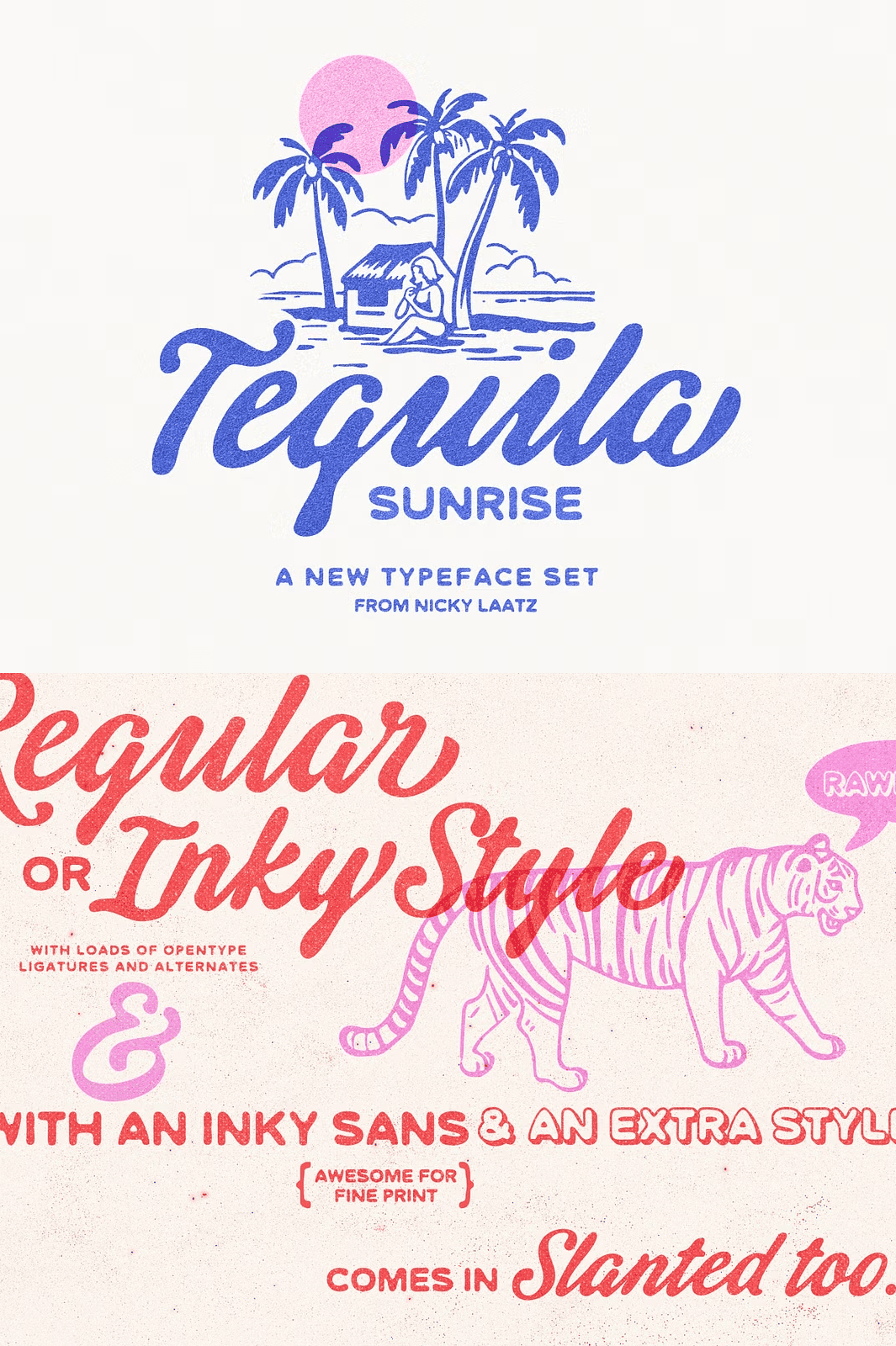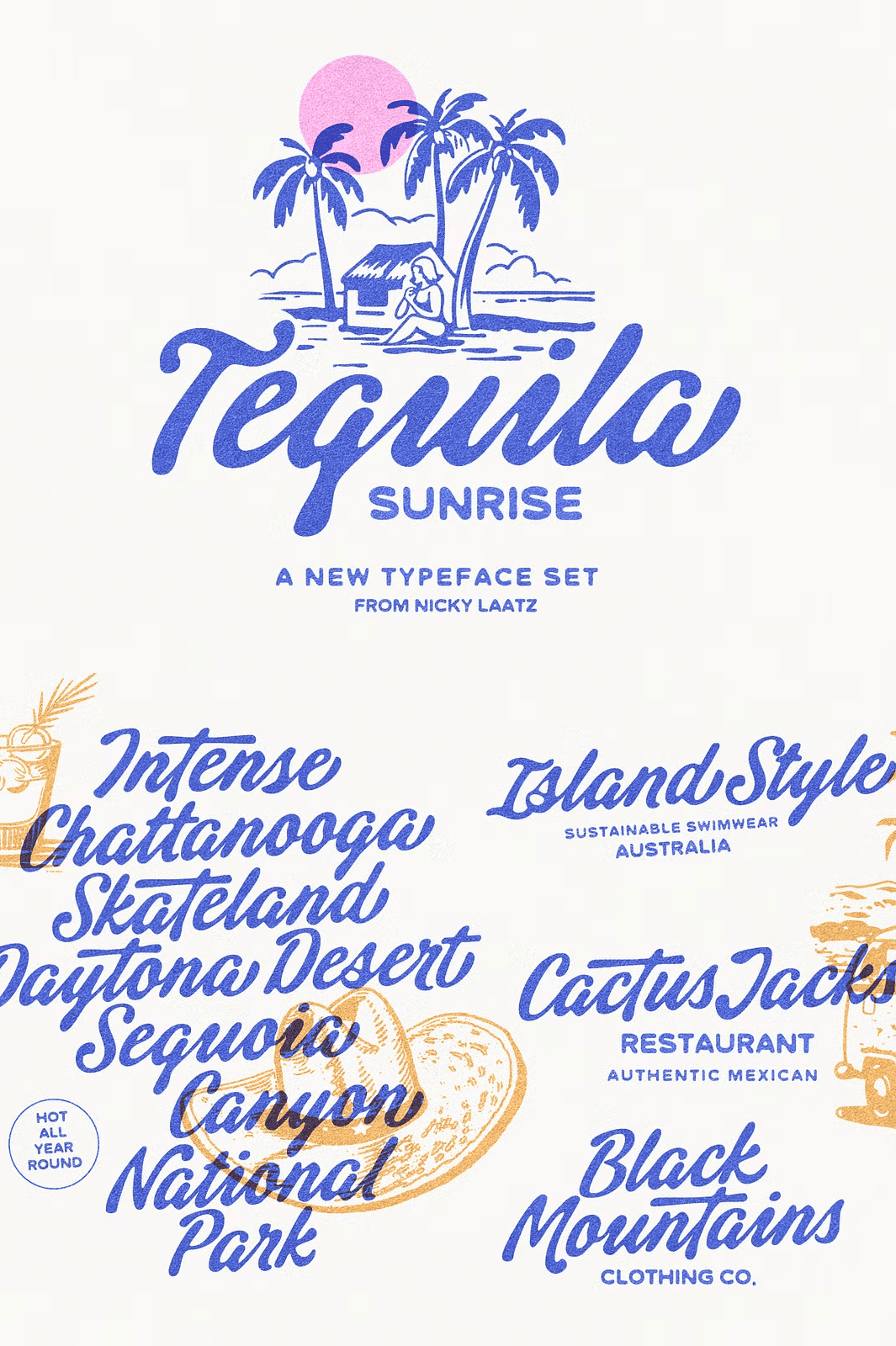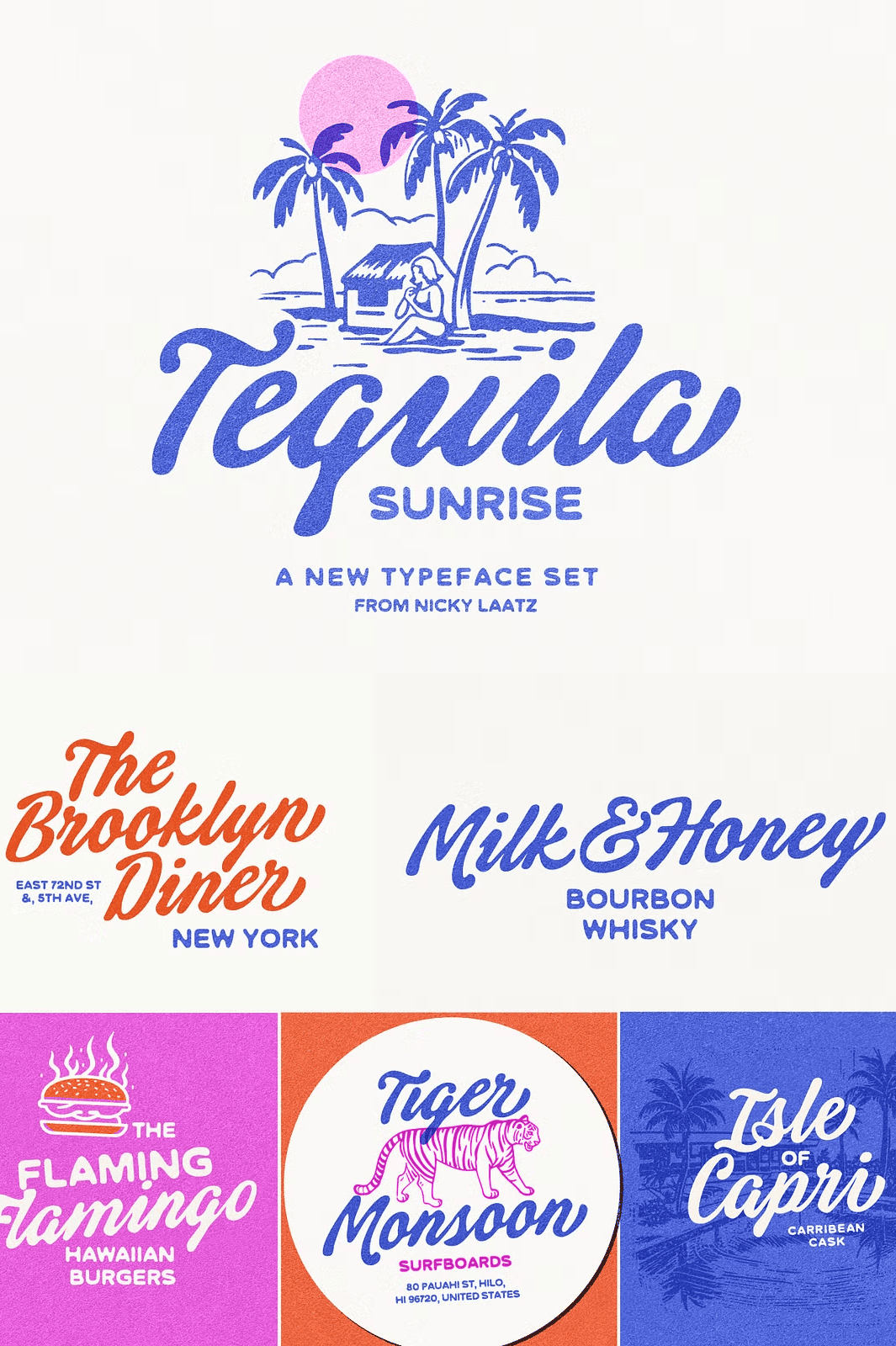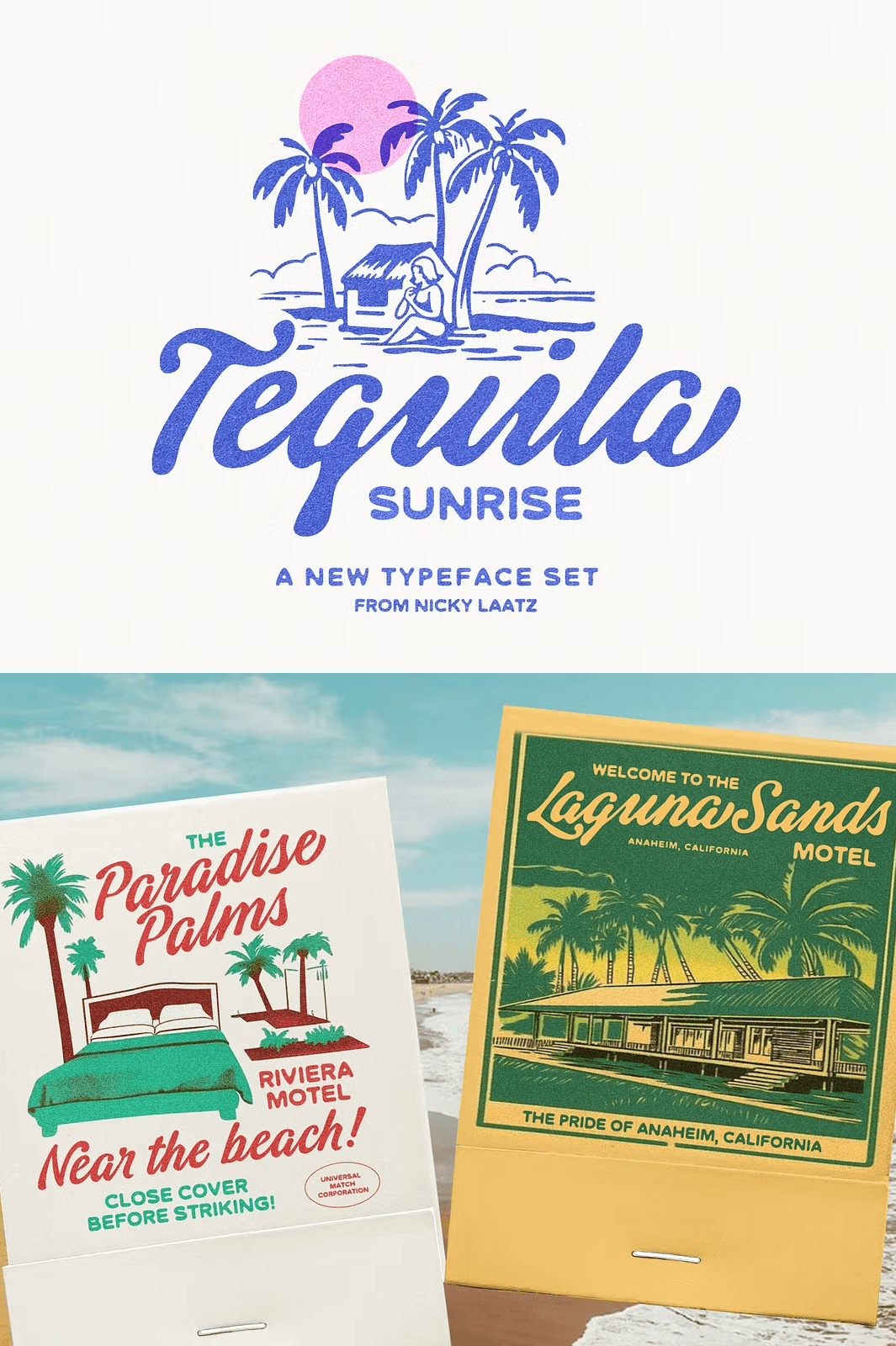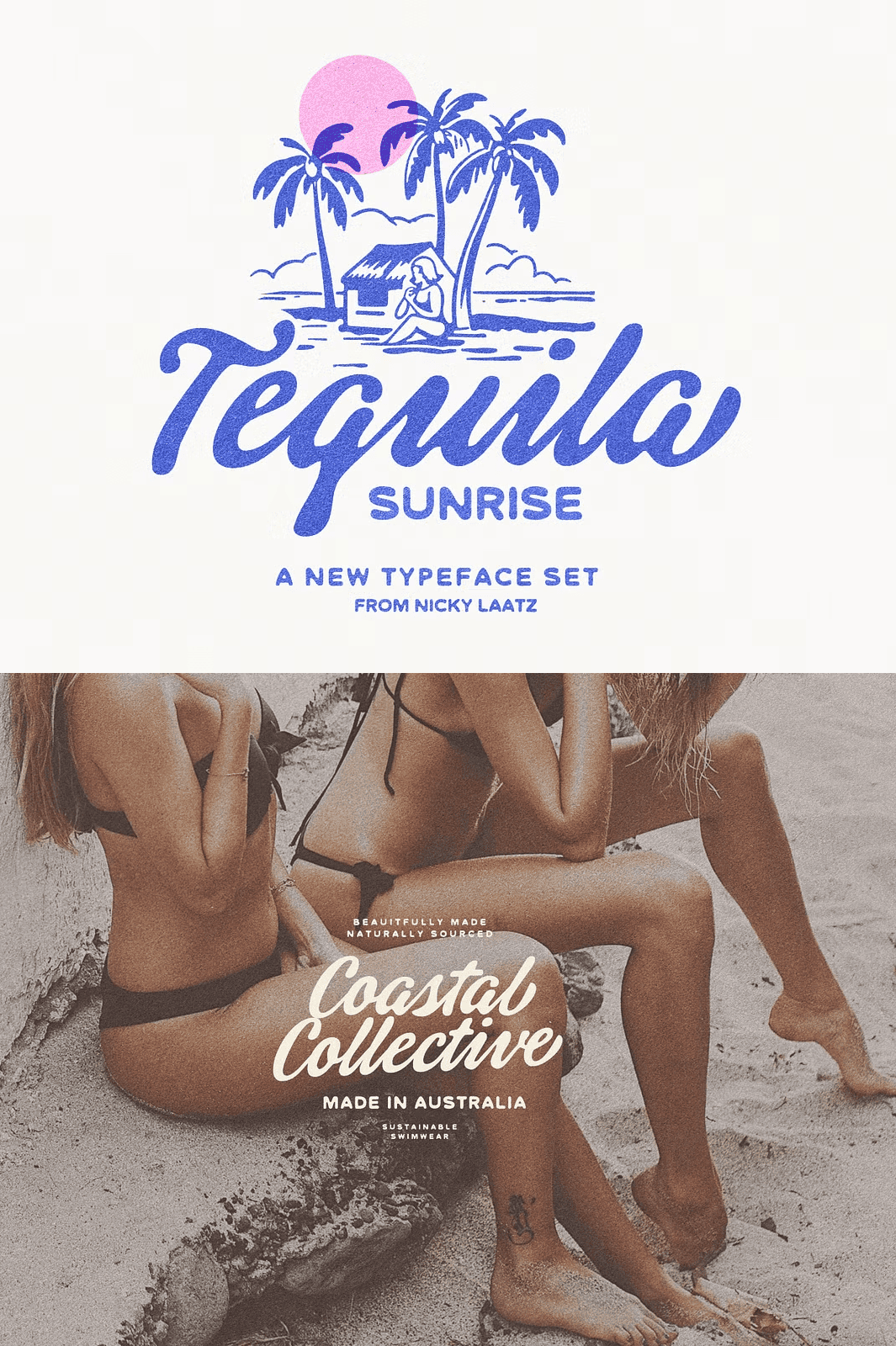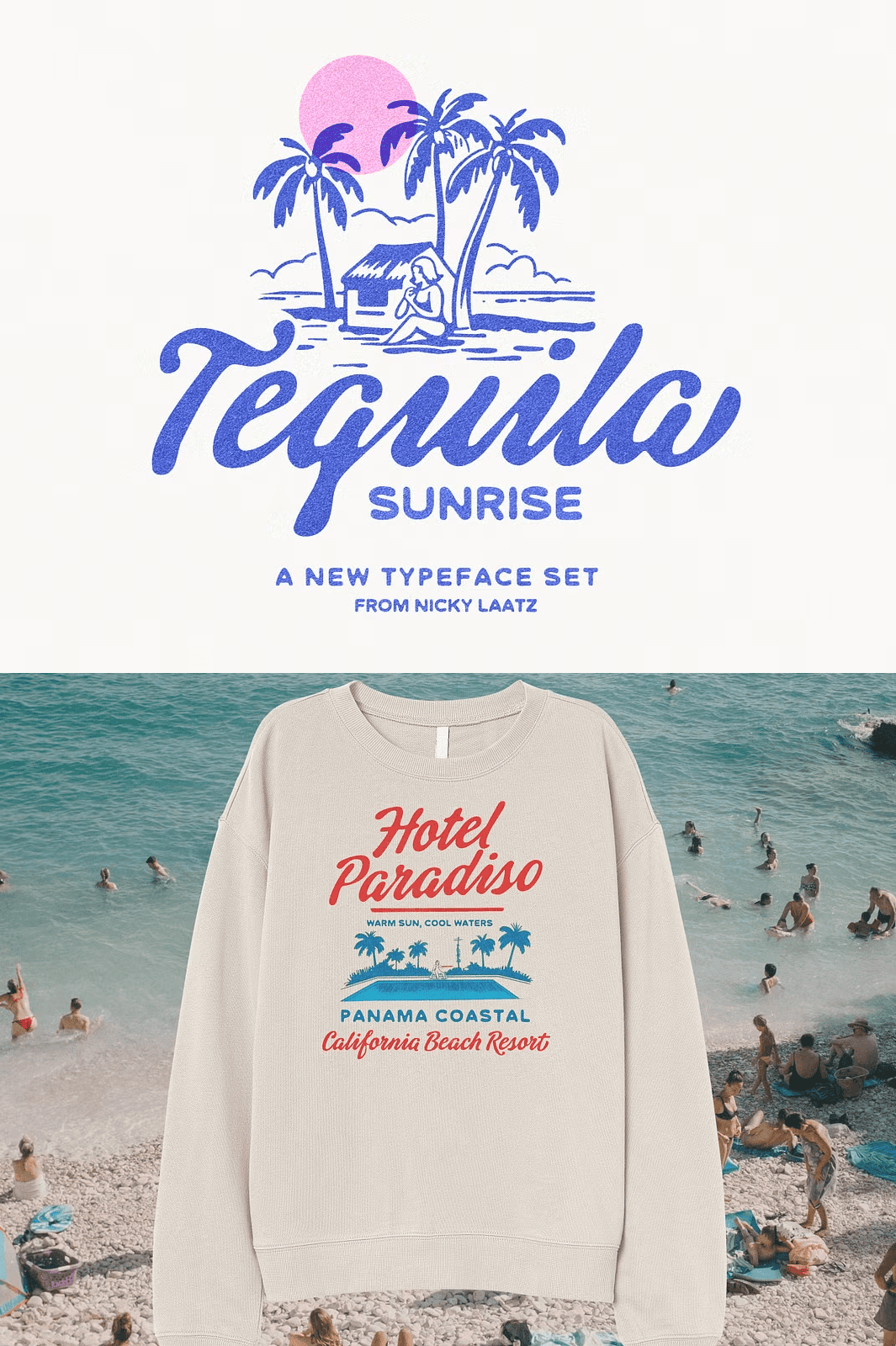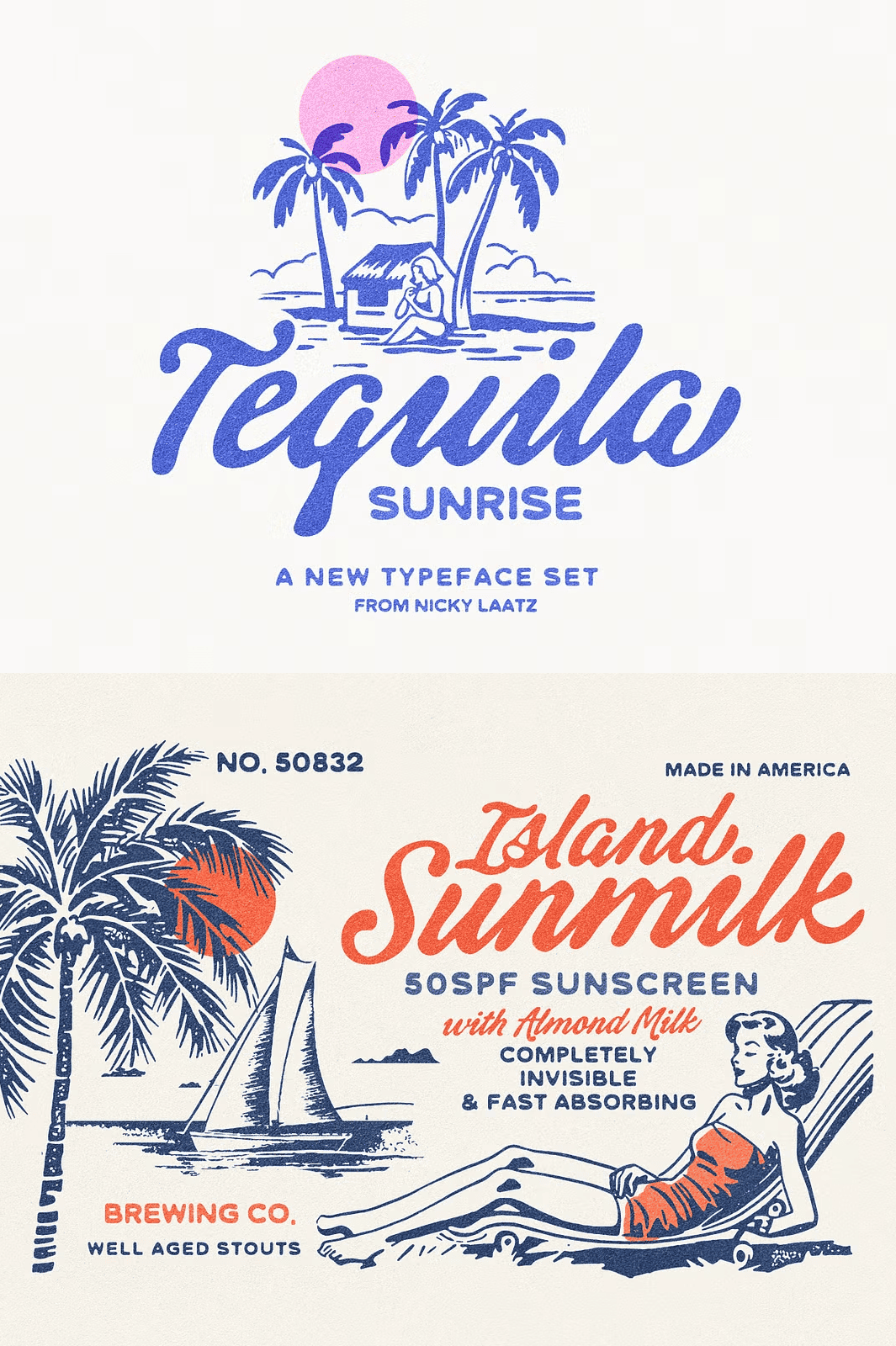
Tequila Sunrise Typeface Pack
Unleash a Retro-Modern Revival with Two Dynamic Typefaces
Step into a golden era of bold design with **Tequila Sunrise Typeface**, a high-energy, creatively charged duo that blends nostalgic 1970s flair with modern typography sophistication. This dynamic pair—featuring a **lively retro script** and a **playfully imperfect inky sans**—is engineered for designers who demand personality, motion, and visual impact in every project. Whether you’re crafting bold promotional posters, vibrant social media content, or a retro-themed brand identity, this font pack delivers instant character and unforgettable style.
Say goodbye to generic, flat typefaces. With built-in alternates, ligatures, and artistic variations, Tequila Sunrise doesn’t just sit on the page—it dances across it.
Master the Script: 6 Variants for Every Design Mood
The **Tequila Sunrise Script** isn’t just a font—it’s a full storytelling toolkit. Choose from six distinct versions that adapt to any artistic tone:
Each variant leverages **Opentype features** to unlock hidden ligatures and alternate letterforms. The magic happens when you type: characters automatically connect in fluid, handcrafted sequences, mimicking real pen strokes and creating authentic, imperfect charm.
Match It with the Inky Sans: Imperfect Harmony Meets Modern Edge
To contrast the script’s elegance, the **Tequila Sunrise Sans** brings a gritty, urban energy. Designed with intentional flaws, its uneven stroke weights and irregular edges make it feel hand-drawn, raw, and full of life. This imperfection isn’t a flaw—it’s a feature.
Plus, it comes with a **dropshadow variant**:
The inky sans stands out in:
– Album covers
– T-shirt designs
– Music event posters
– Social media graphics
– Branding kits with attitude
Use it alongside the script to create a balanced, high-contrast composition that grabs attention and lingers in memory.
Enable features like **ligatures, stylistic sets, alternates, and contextual substitutions** to transform simple text into stunning visual compositions. Type “SUN” and see natural flowing connections no manual tweaks needed.
Don’t just use a font **define your design aesthetic** with Tequila Sunrise. Let your projects radiate energy, emotion, and that unforgettable retro glow.
Build Your Next Iconic Project with a Typeface That Demands Attention
Tequila Sunrise Typeface isn’t just a tool it’s a creative movement. If you want designs that feel alive, expressive, and rich with character, this is your go-to font pair.